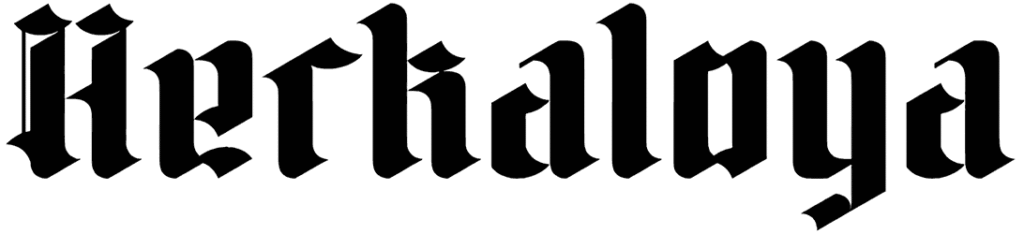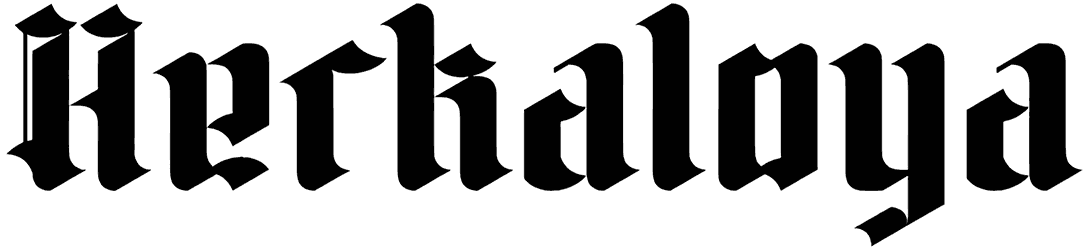
Herkaloya Font
Are you interested in medieval designs with a royal and strong vibe for your intended layout? This blackletter font, with its bold and decorated letters, can be exactly what you want. There is no punctuation support, but who can deny the beauty of a design such as a poster, logo, video, or anything else with a featured item like Herkaloya? Have a delight.